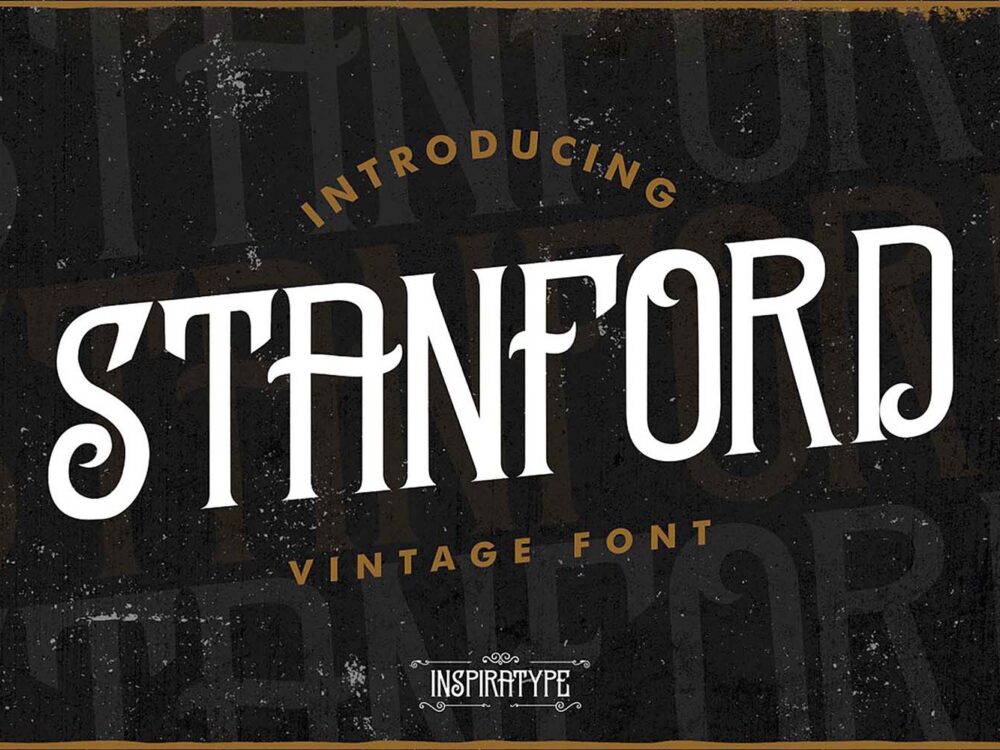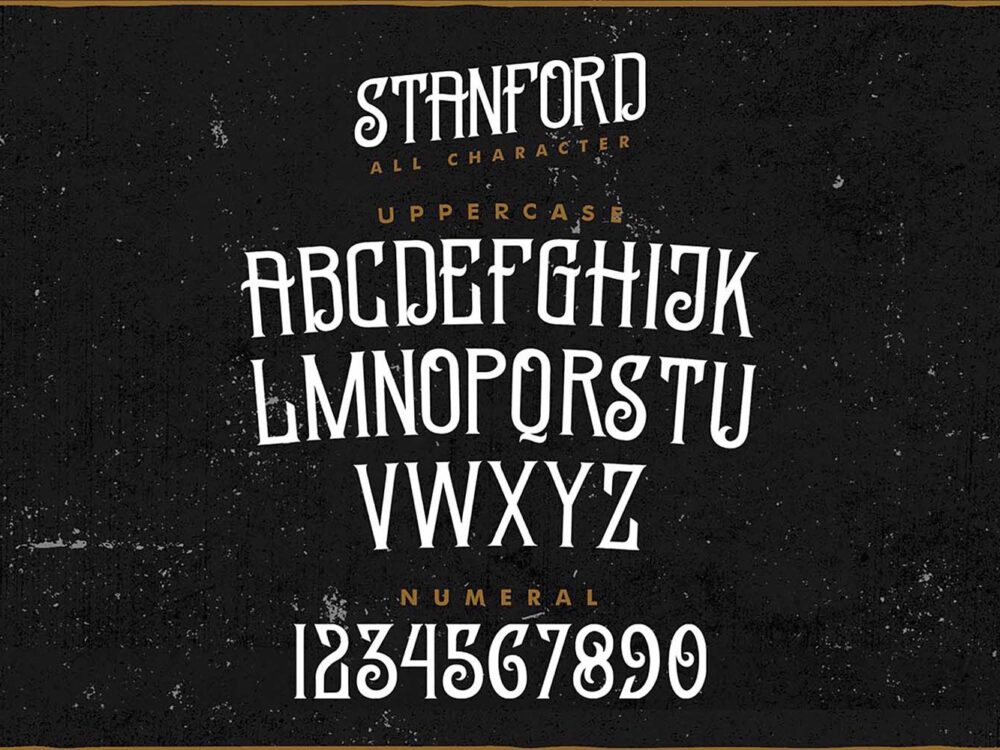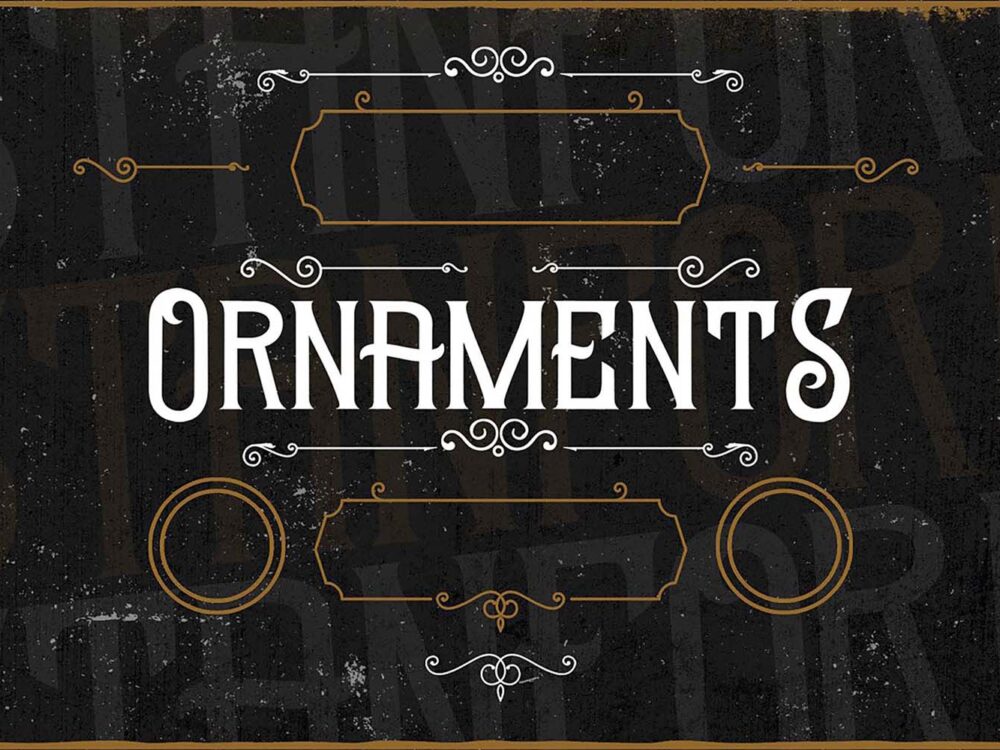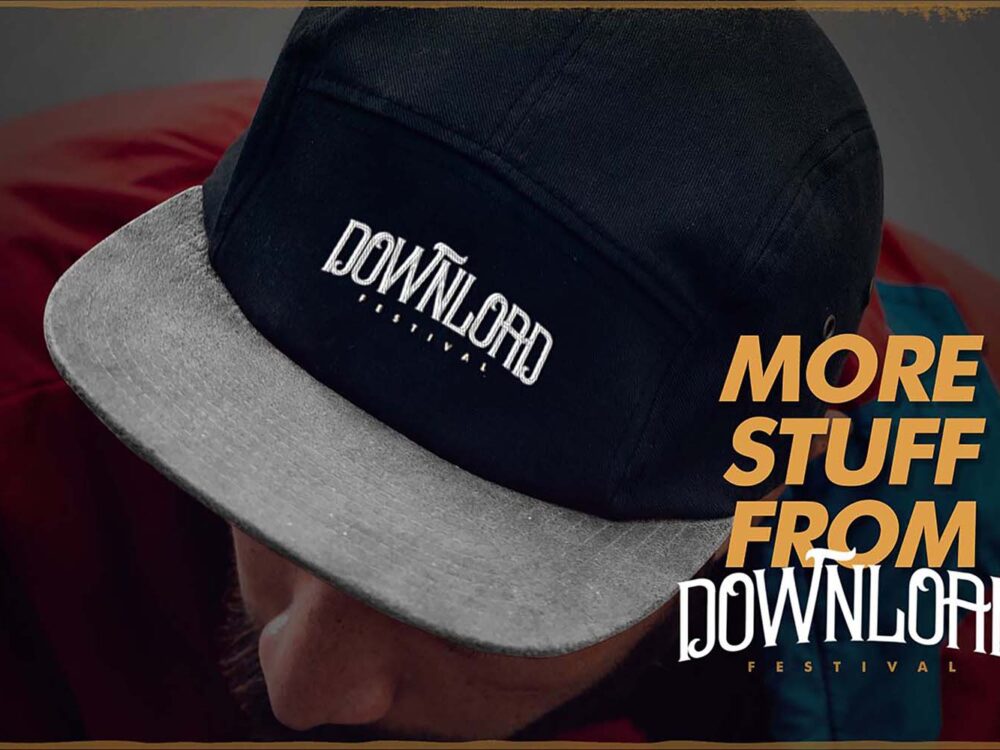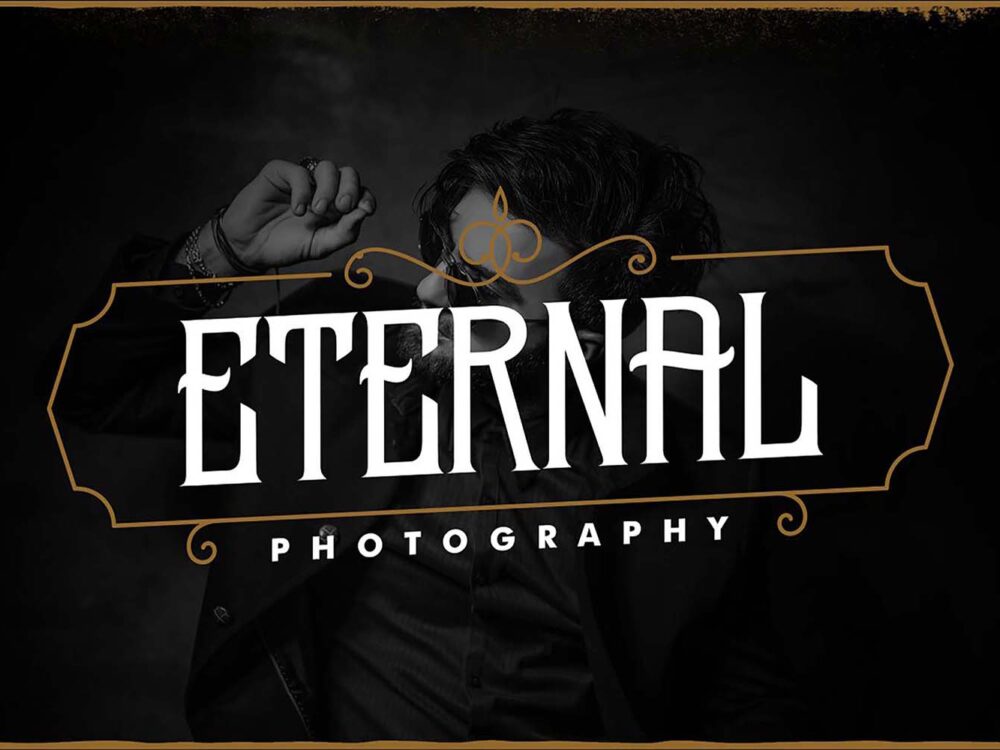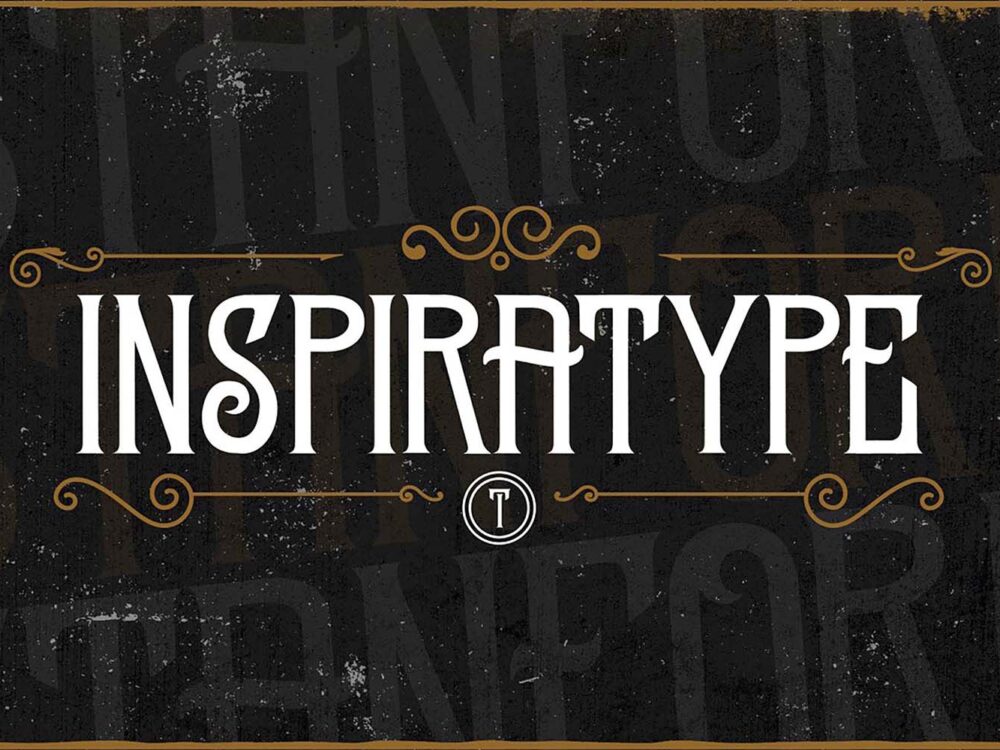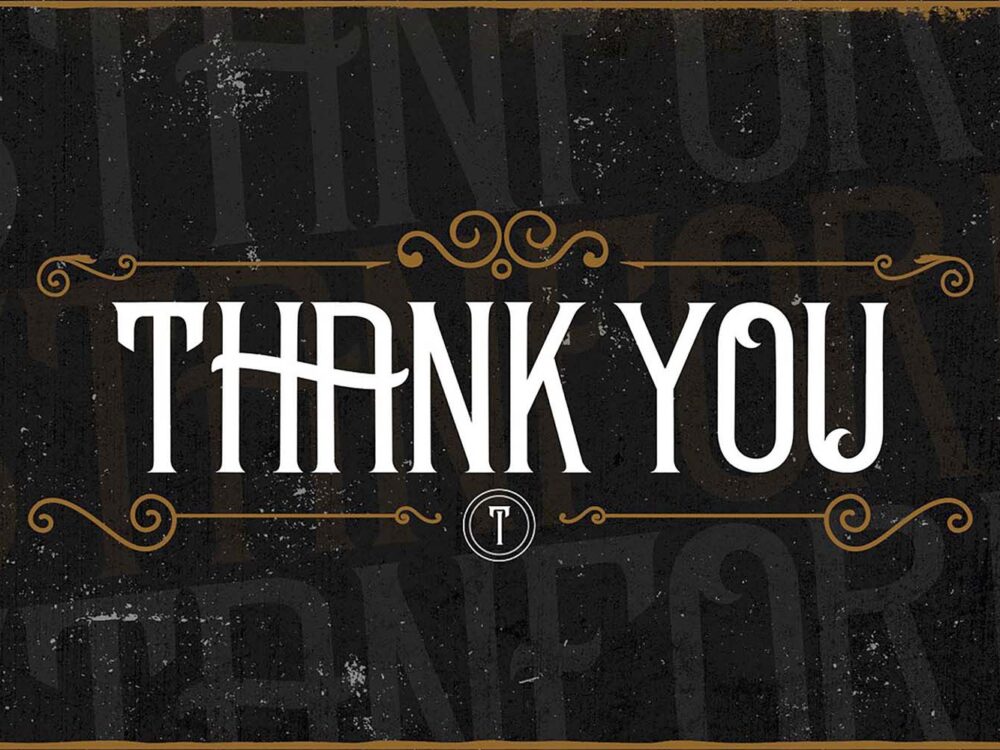
Standford Vintage Font Demo
Standford Vintage Font Demo is an interesting typeface inspired by retro posters. The font consists of uppercase and lowercase letters, numbers, symbols, and various variations of each character. If you are looking for a beautiful, unusual font for your poster, logo, clothing, or label project, then the Standford Vintage Font Demo is perfect for your purposes. If you wish to access more features and use it for commercial work, go get the full version too.
All Caps Font